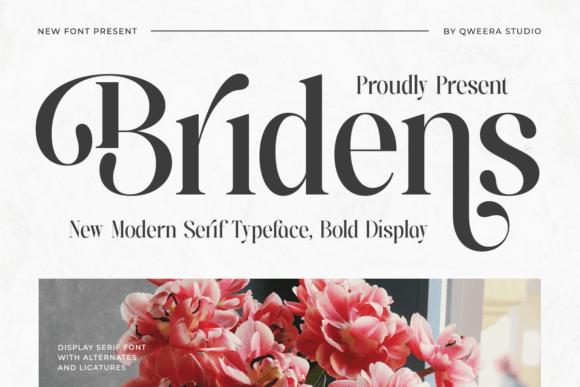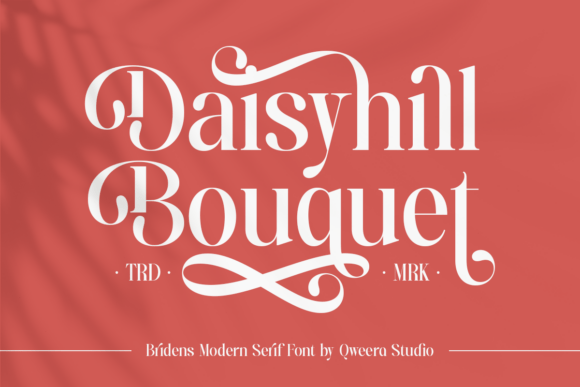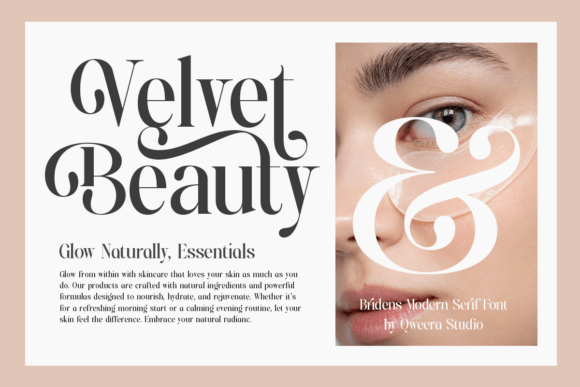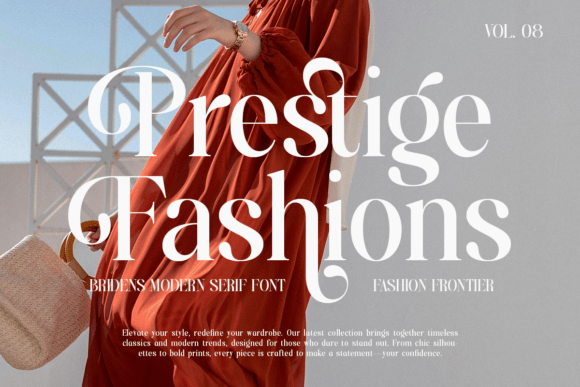
Bridens Font: Elegant Serif for Modern Logo Design & Wedding Invitations
About the Bridens Font
Let us introduce you to Bridens Font, where timeless design meets modern craftsmanship. Bridens is more than just a font—it’s a statement of modern elegance and versatility. With its Regular and Italic versions, Bridens offers a wide range of creative possibilities, making it the perfect choice for branding, editorial design, web typography, and any project that demands a bold, elegant touch. Whether you’re crafting a sleek logo or designing a standout editorial layout, Bridens ensures your work radiates sophistication and timeless appeal.
Bridens excels in headline treatments, short-form text blocks, and logo design where its elegant boldness makes a strong visual impact. It’s particularly well-suited for brands projecting sophistication and modernity, such as luxury goods, high-end fashion, or architectural firms. Avoid using Bridens for extended body copy or UI elements; its strong character can become visually fatiguing in large blocks of text.
Consider pairing Bridens with a clean sans-serif like Lato for a contemporary feel, or a classic serif such as Garamond for a more traditional yet balanced aesthetic. For a touch of playful contrast, a rounded geometric sans-serif like Futura would also complement its strong lines.
Bridens possesses a core personality best described as sophisticated and assertive, projecting confidence without being overly aggressive. Its versatility allows for applications across various design contexts, provided its inherent boldness is carefully considered.
Bridens Font Usage Examples
Bridens Font Example